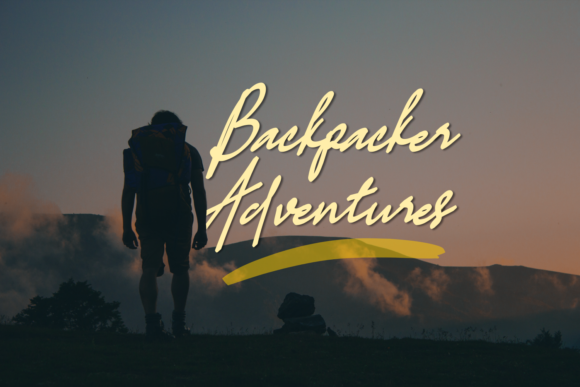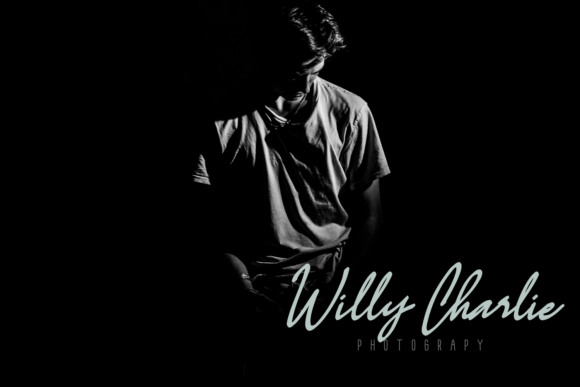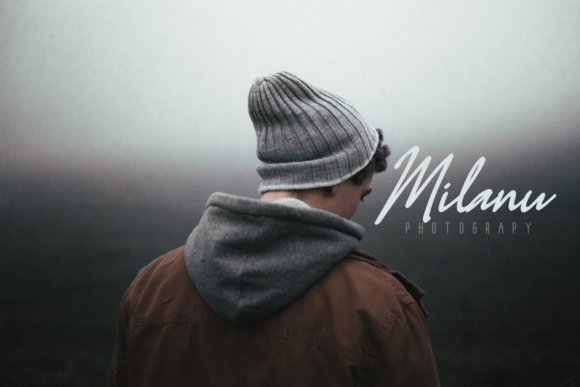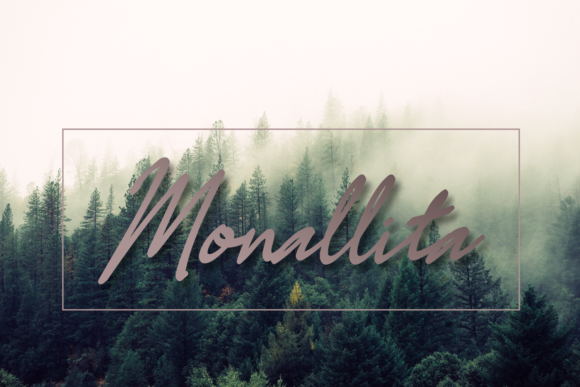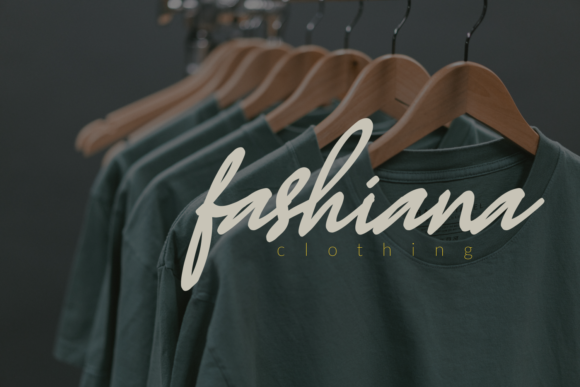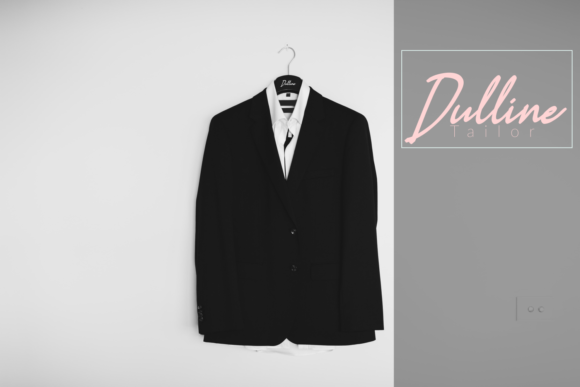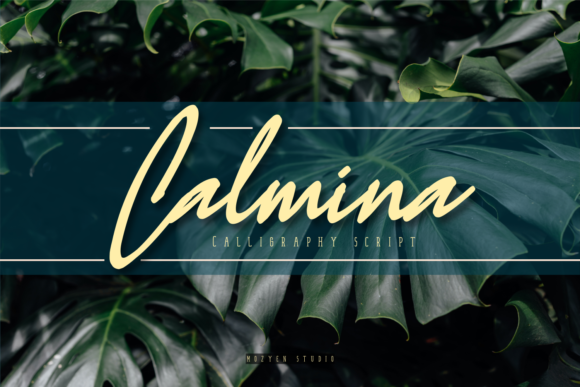
Introducing Calmina Font: The Sweet and Friendly Handwritten Font for Your Creative Projects
Are you a designer, crafter, or DIY enthusiast looking for a font that can add a touch of warmth and personality to your projects? Look no further than Calmina Font, a sweet and friendly handwritten font that’s perfect for a wide range of designs. With its natural and unique style, Calmina Font is incredibly versatile and can be used in various creative projects, from digital designs to handmade crafts.
What Makes Calmina Font Special?
Calmina Font is a one-of-a-kind handwritten font that’s designed to bring a sense of friendliness and approachability to your designs. Its natural and unique style makes it stand out from other fonts, and its sweetness and charm can add a touch of personality to any project. Whether you’re creating a logo, a poster, a social media graphic, or a handmade craft, Calmina Font is the perfect choice.
The Benefits of Using Calmina Font
So, what are the benefits of using Calmina Font in your designs? Here are just a few:
- Unique and eye-catching: Calmina Font is a one-of-a-kind font that’s sure to grab attention and make your designs stand out.
- Versatile: Calmina Font can be used in a wide range of designs, from digital designs to handmade crafts.
- Easy to read: Despite its unique style, Calmina Font is easy to read and understand, making it perfect for body text and headlines.
- Customizable: Calmina Font can be customized to fit your brand’s style and personality, making it perfect for branding and marketing materials.
How to Use Calmina Font in Your Designs
Using Calmina Font in your designs is easy. Here are a few tips to get you started:
- Pair it with other fonts: Calmina Font pairs well with other fonts, including serif and sans-serif fonts. Experiment with different font combinations to find the perfect look for your design.
- Use it for headlines and body text: Calmina Font is perfect for headlines and body text. Use it to add a touch of personality to your designs.
- Customize it: Calmina Font can be customized to fit your brand’s style and personality. Experiment with different colors, sizes, and styles to find the perfect look for your design.
Calmina Font in the World of Crafting
Calmina Font is not just limited to digital designs. It’s also perfect for crafters and DIY enthusiasts who want to add a touch of personality to their handmade projects. Here are a few ways you can use Calmina Font in your crafting projects:
- Handmade cards: Use Calmina Font to add a personal touch to your handmade cards.
- Journaling: Calmina Font is perfect for journaling and scrapbooking. Use it to add a touch of personality to your journal pages.
- Sign making: Calmina Font is perfect for sign making. Use it to create custom signs for your home or business.
| Font Name | Calmina Font |
| Author | Mozyen Studio |